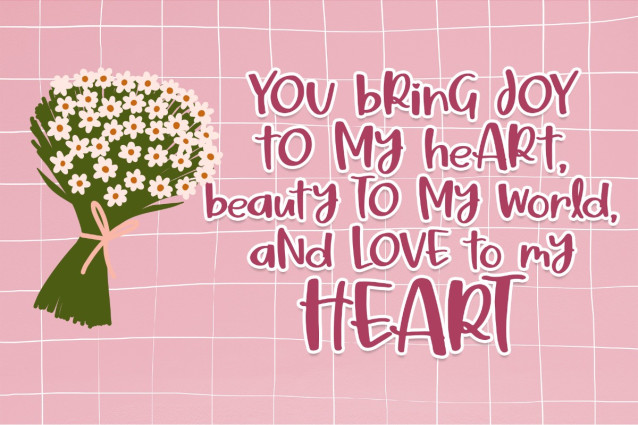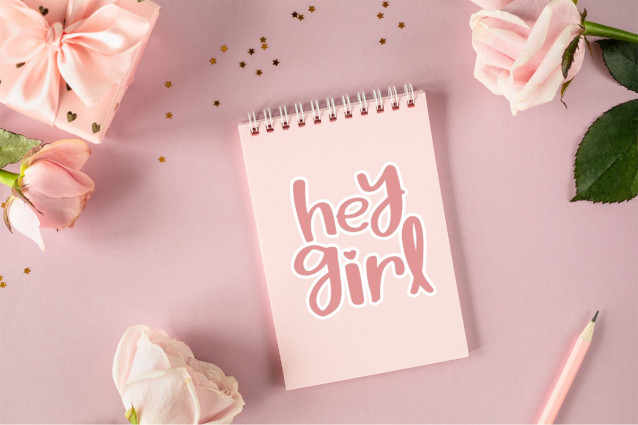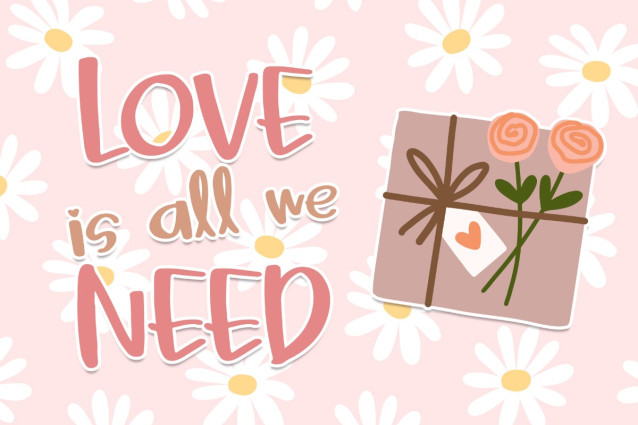
Pink Shine Font
Pink Shine Font, a delightful and free Personal Use font crafted to bring a touch of elegance to your personal projects. Whether you’re working on invitations, cards, or creative designs, Pink Shine adds a charming and playful aesthetic.
Pink Shine Font is a stylish and elegant typeface designed to add a touch of glamour and sophistication to your creative projects. Its delicate strokes and graceful curves make it perfect for a wide range of applications, from wedding invitations to fashion branding.